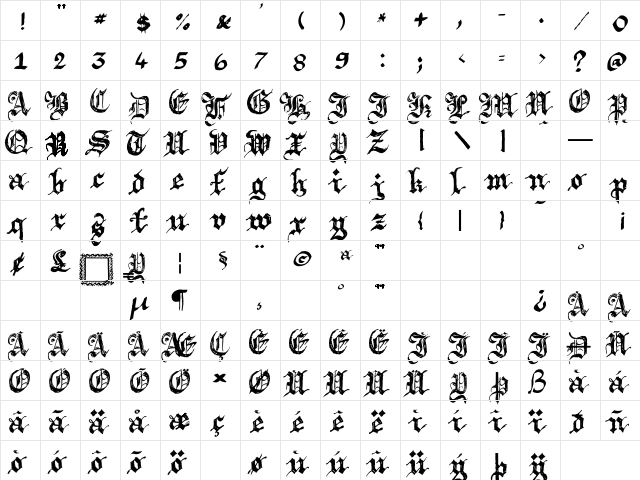
Argor Brujsh Scaqh Regular
Design Context for Argor Brujsh Scaqh Typeface
Argor Brujsh Scaqh is a composed and adaptable typeface that performs quietly and consistently across a wide range of design contexts.